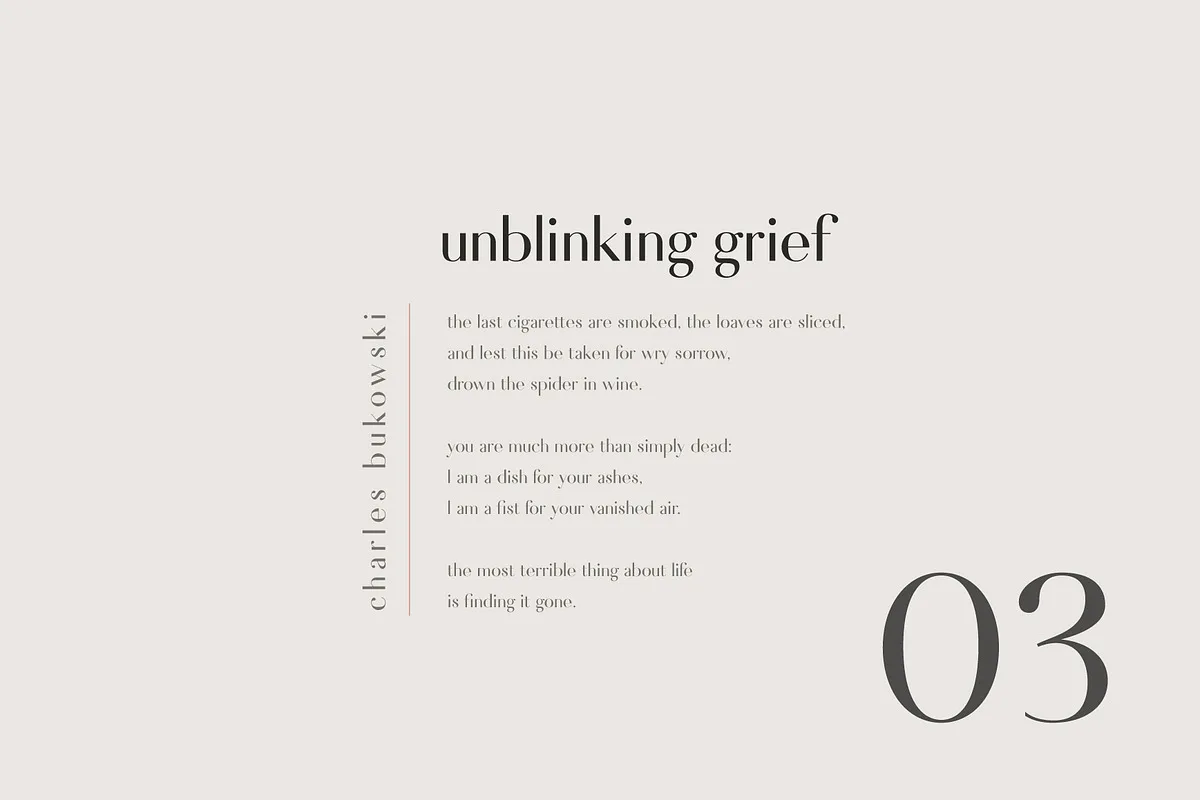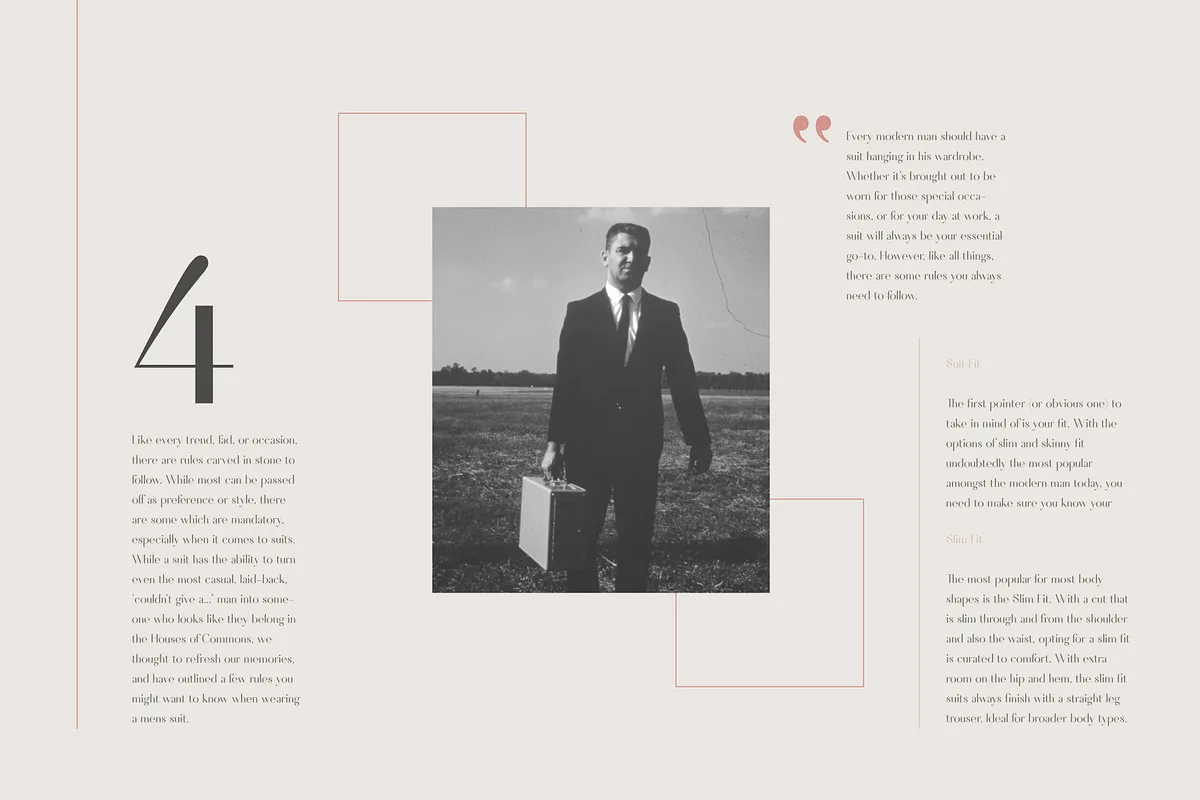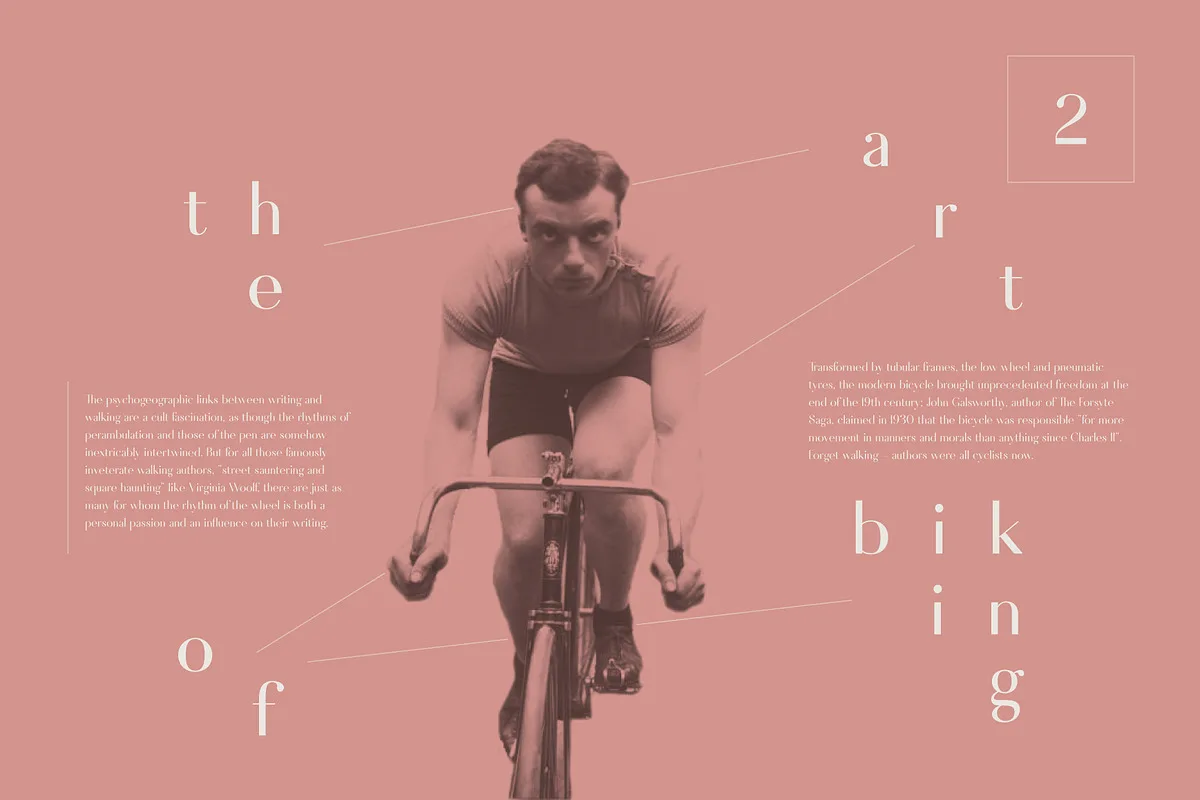
Fiona is a gorgeous sans-serif typeface that is both classically elegant and inherently modern. Create beautiful wedding invitations, use them as an elegant solution for your next magazine layout, or choose Fiona for any graphics that require a sleek look with a vintage flair.
It is based on classic letterforms for publishing and display graphics, so you can give your text a classic, elegant feel with Fiona’s clean, high-contrast lines and alternating thick and thin strokes.